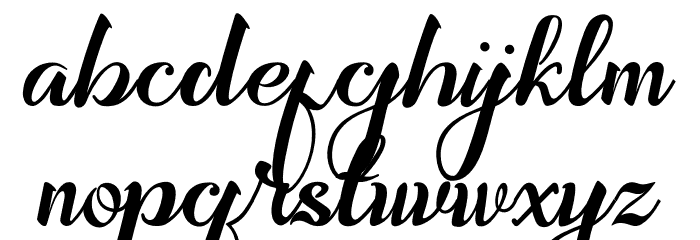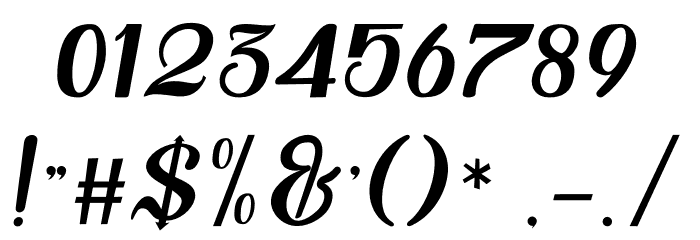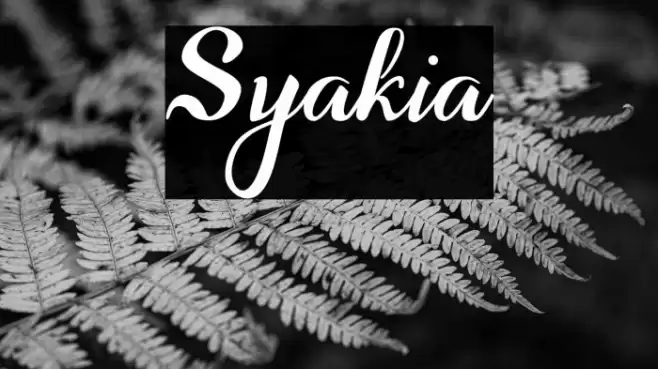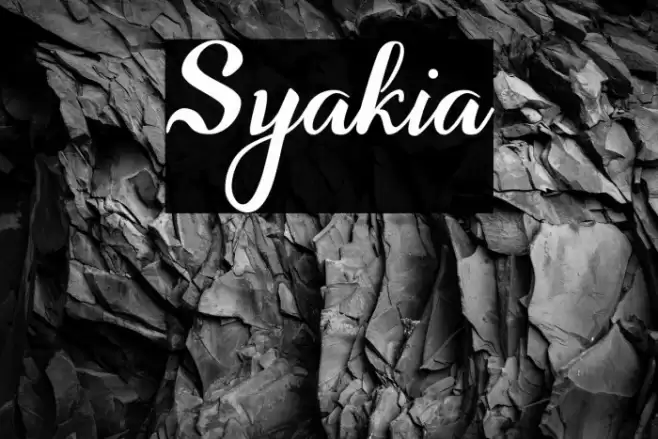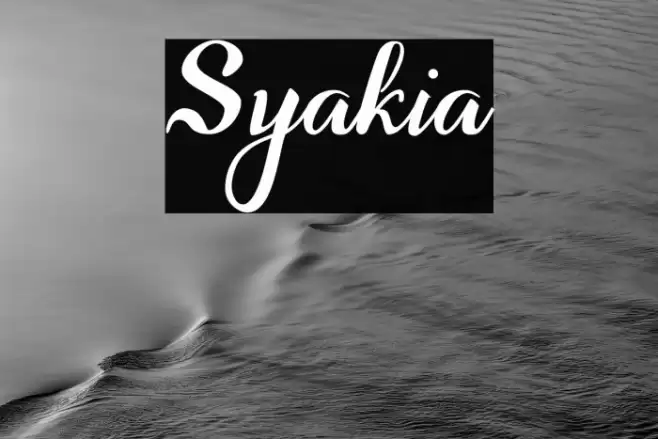
Syakia Font
This font features an elegant and flowing script style, characterized by its smooth, cursive letterforms that mimic traditional calligraphy. The uppercase letters are ornate, with flourishes that add a sense of sophistication and grace. The lowercase letters maintain a consistent flow, enhancing readability while retaining an artistic flair. Numbers and special characters are designed to complement the overall script style, ensuring a cohesive look across all text elements. This font is ideal for projects that require a touch of elegance and formality.
An elegant script font with flowing, cursive letterforms and ornate flourishes.
- Proposed Projects: Wedding invitations, greeting cards, elegant branding, and formal event programs.
- Overall Style: Elegant
- Use Case: Headlines, Invitations, Branding